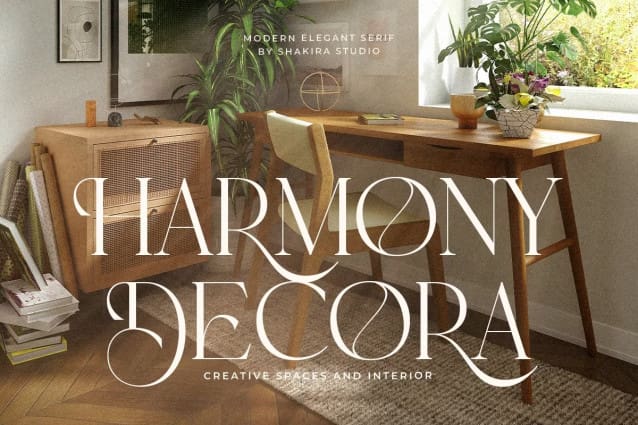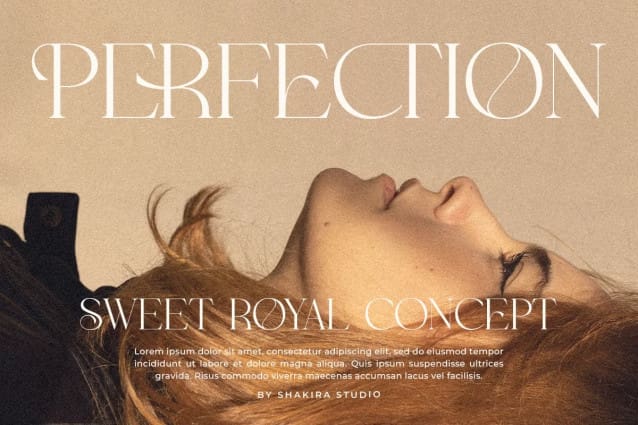
Cakorla Font
Cakorla Font – The Modern Classy Serif Font with Luxurious Character! With its elegant characters, stylish alternates, and exquisite ligatures, Cakorla adds a distinctive and opulent flair to any project. Whether you’re designing high-end branding, elegant invitations, or refined editorial layouts, Cakorla ensures your work exudes class and elegance.